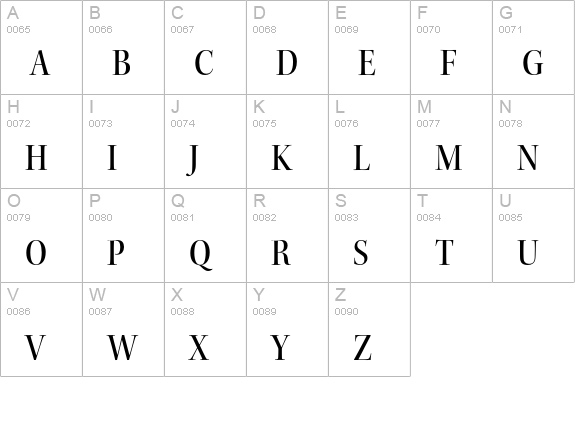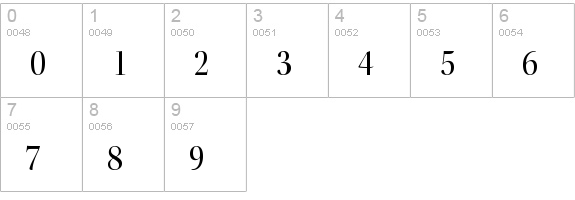
Kepler Std Medium Semicondensed Display Font Details
Kepler Std Medium Semicondensed Display is a balanced, medium-weight variant in the Kepler typeface family \xE2\x80\x94 well suited to sub-headlines, navigation, and balanced editorial work.
Kepler Std Medium Semicondensed Display font is a versatile and elegant typeface that is perfect for a wide range of design projects. With its modern and clean design, this font is perfect for headlines, titles, and display purposes. The medium weight of this font strikes the perfect balance between legibility and impact, making it a great choice for both print and digital designs. Its semicondensed proportions allow for efficient use of space without sacrificing readability. The Kepler Std Medium Semicondensed Display font features a timeless aesthetic that exudes professionalism and sophistication. Its precise letterforms and balanced spacing create a harmonious and polished look. One of the best things about this font is that it is freely available to download at FontsMarket.com. Whether you are a professional designer or someone looking to add a touch of elegance to your personal projects, this font is accessible to everyone. Add a touch of class and style to your designs with Kepler Std Medium Semicondensed Display font. Its versatility and timeless appeal make it a must-have for any design arsenal. Download it for free at FontsMarket.com and start creating stunning designs today.